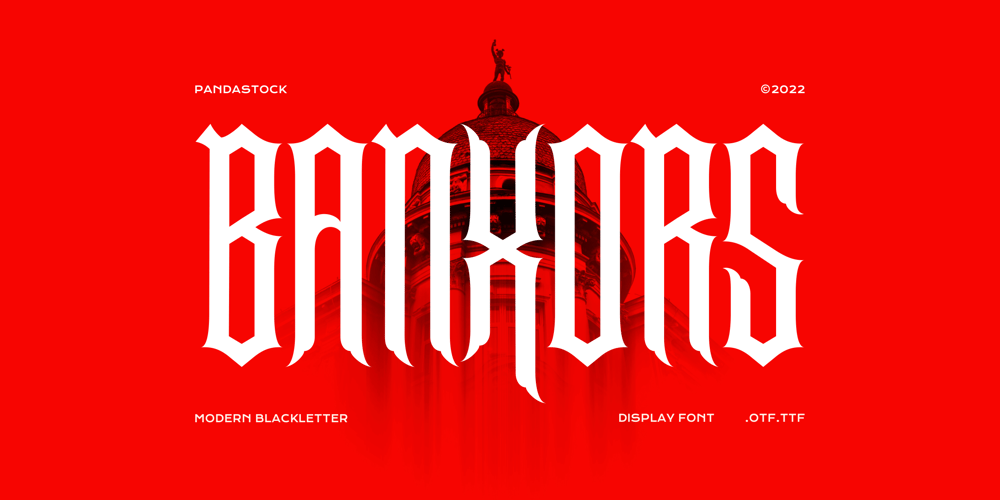
Banxors Font Family was designed by Aulia Savira Putri and published by Imoodev. Banxors contains 1 styles and family package options. Banxors is modern blackletter, this typeface has smooth curves and a visual style a can embodies charm and elegance in every lettering, making your work look stunning and attractive.A versatile font that works in both large and small sizes, suitable for a wide variety of projects such as a display for headings, logos, invitations, branding, magazine, photography, card, product packaging, product mockup, mugs, posters, labels, signatures, editorials, art deco, any type of advertising purpose.